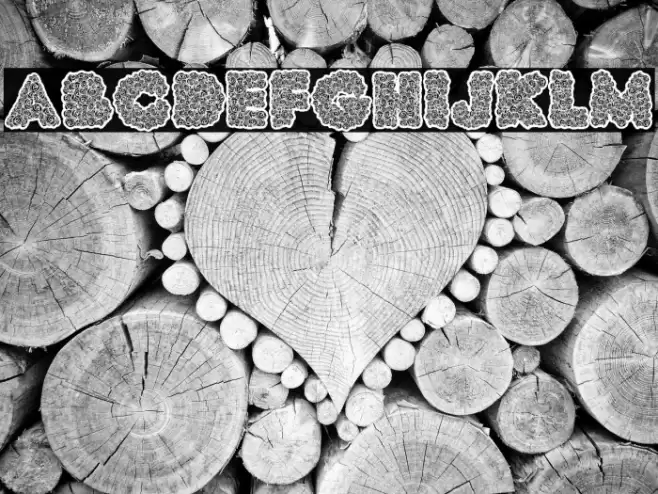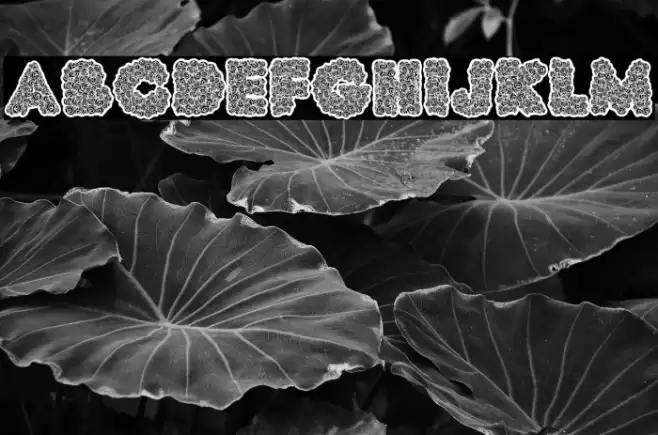
UNCLE PERSONAL USE Bold Font
UNCLE PERSONAL USE Bold Description
This font features a bold and playful design with a textured, cloud-like appearance. Each letter is filled with intricate patterns that give it a unique, decorative look. The uppercase letters are prominent and eye-catching, making them ideal for attention-grabbing headlines or creative projects. The font's whimsical style is reminiscent of hand-drawn illustrations, adding a touch of fun and creativity to any design. Its boldness ensures that it stands out, while the detailed texture adds depth and interest. This font is perfect for projects that require a distinctive and artistic flair.
A bold, textured font with a playful, cloud-like design from Decorative fonts.
- Font: UNCLE PERSONAL USE Bold
- Proposed Projects: Ideal for children's book covers, playful posters, creative branding, and artistic invitations.